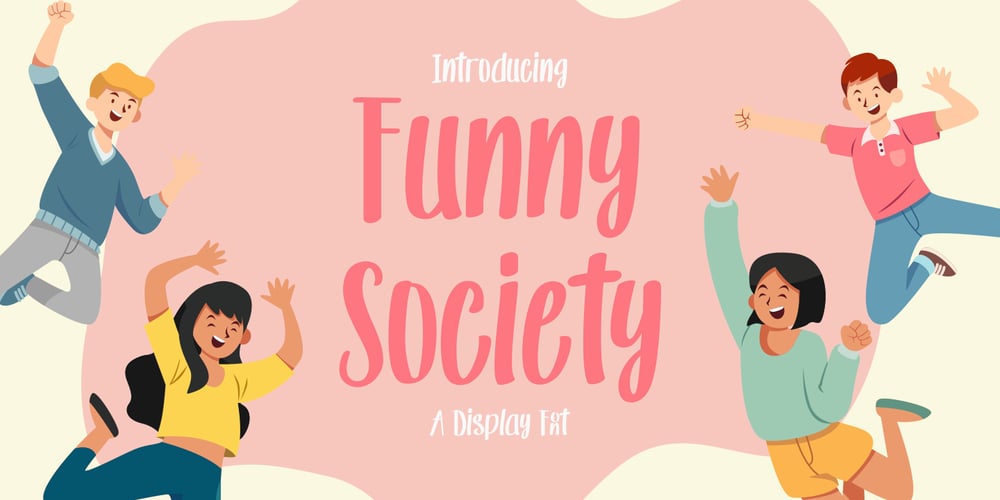
Funny Society
Funny Society font
Funny Society Font Family was designed by Fairuz . and published by NonaNova. Funny Society contains 1 styles and family package options. Funny society is a unique handwritten font that has a beautiful touch.This font is perfect for kids designs, branding, invitations, svg designs, logos, birthdays, parties and much more.What’s Included :LigatureUppercase, Lowercase, Numeral and Punctuation, SymbolInternational LanguageWorks on PC & MacSimple installations Accessible in the Adobe Illustrator, Adobe Photoshop, Adobe InDesign, even works on Microsoft Word. Thank you for your purchase!Hope you enjoy with our fonts! “NonaNova”